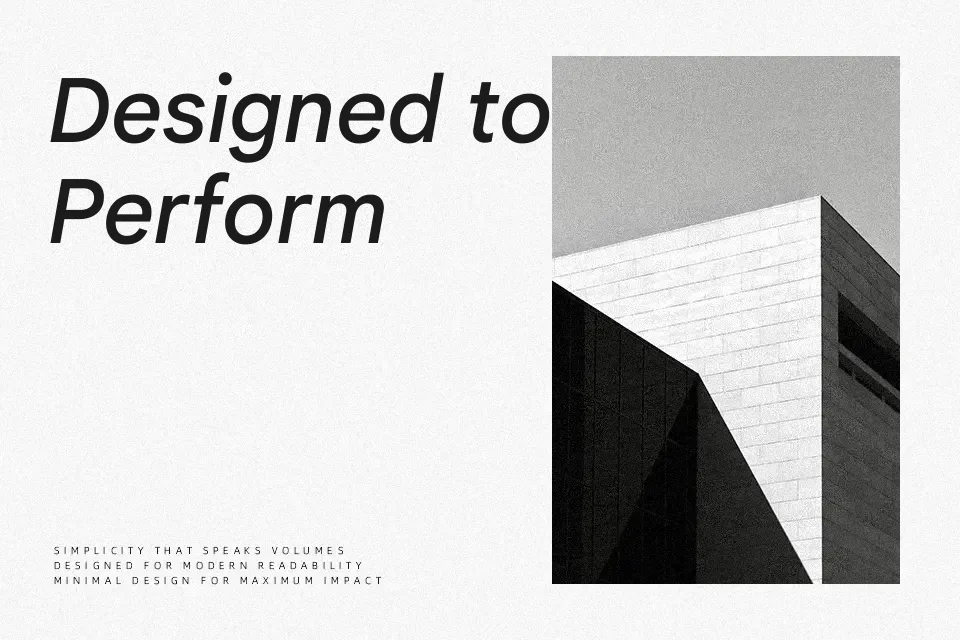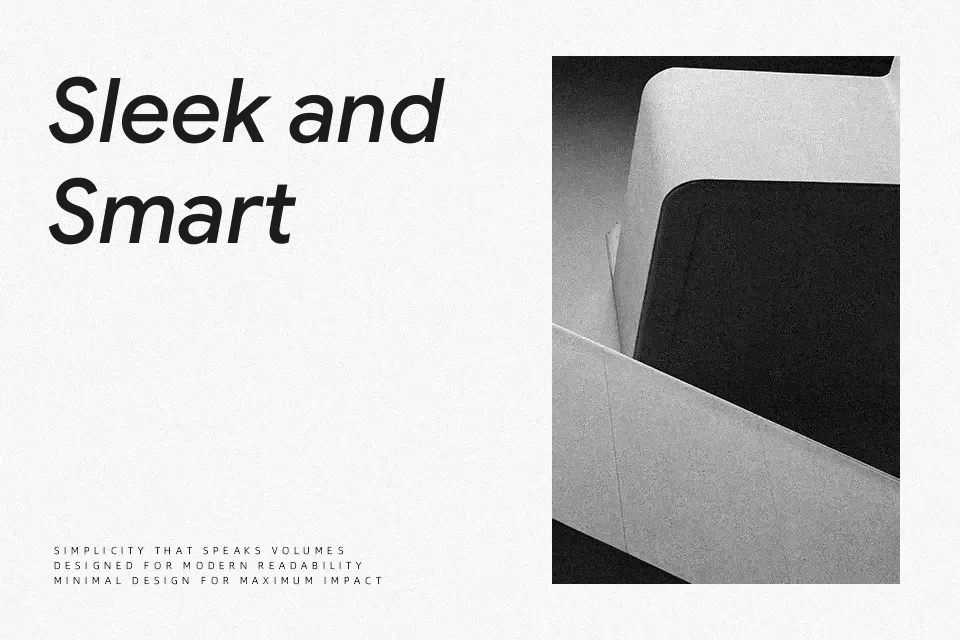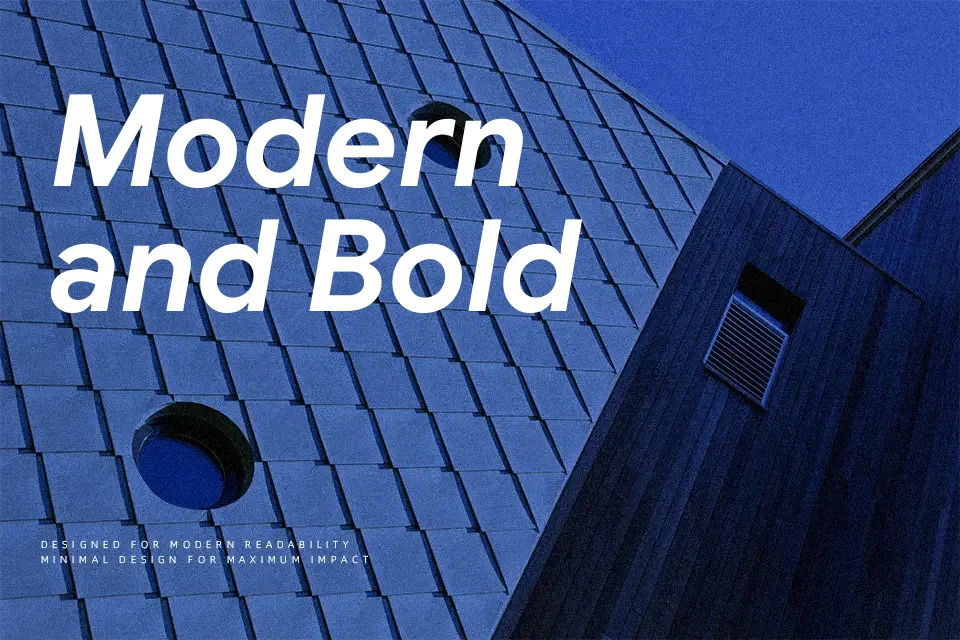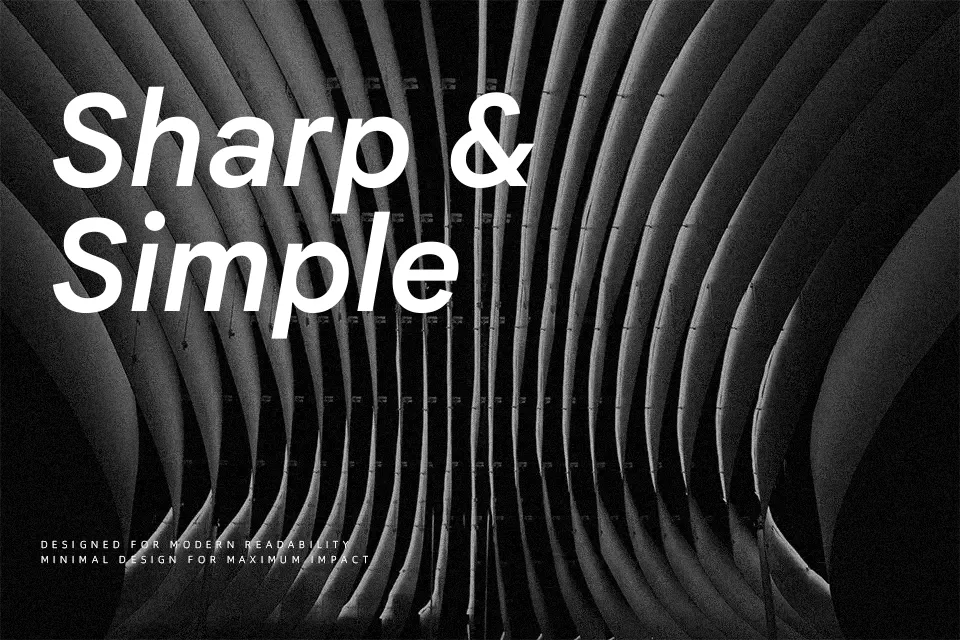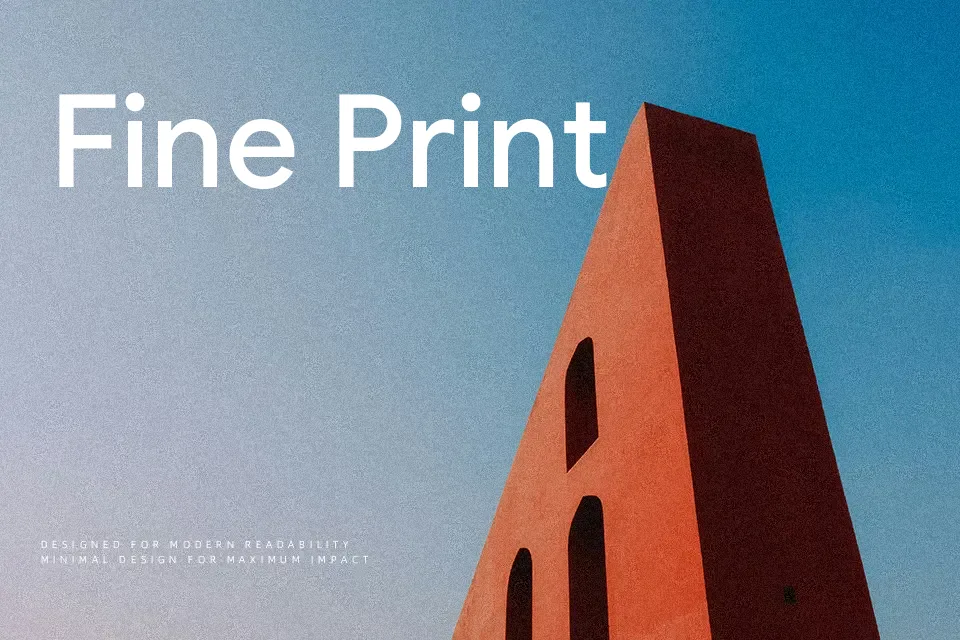
Google Sans Font
Designed by Google
Google Sans Font is a modern sans serif with open counters, moderate contrast, and carefully tuned spacing that keeps text readable across a wide range of screen sizes. Its structure leans geometric but softens the shapes with gentle curves, so it feels friendly rather than cold. In practice, it shines in product UIs, dashboards, app onboarding, and marketing hero sections where you want a consistent tone from headline to short body copy. When you need a more expressive logo or heavily characterful display look, it can feel too restrained and corporate. Designers who like the cleanliness of fonts like Product Sans or Roboto but want a bit more polish in variable weights often find Google Sans a comfortable middle ground.
interface headlines
product marketing layouts
app navigation labels
short UI body text
long print-heavy books
highly decorative branding
ornate event invitations
expressive display lettering
Perfect for advertising, headline, and logo, with a clean and geometric style.